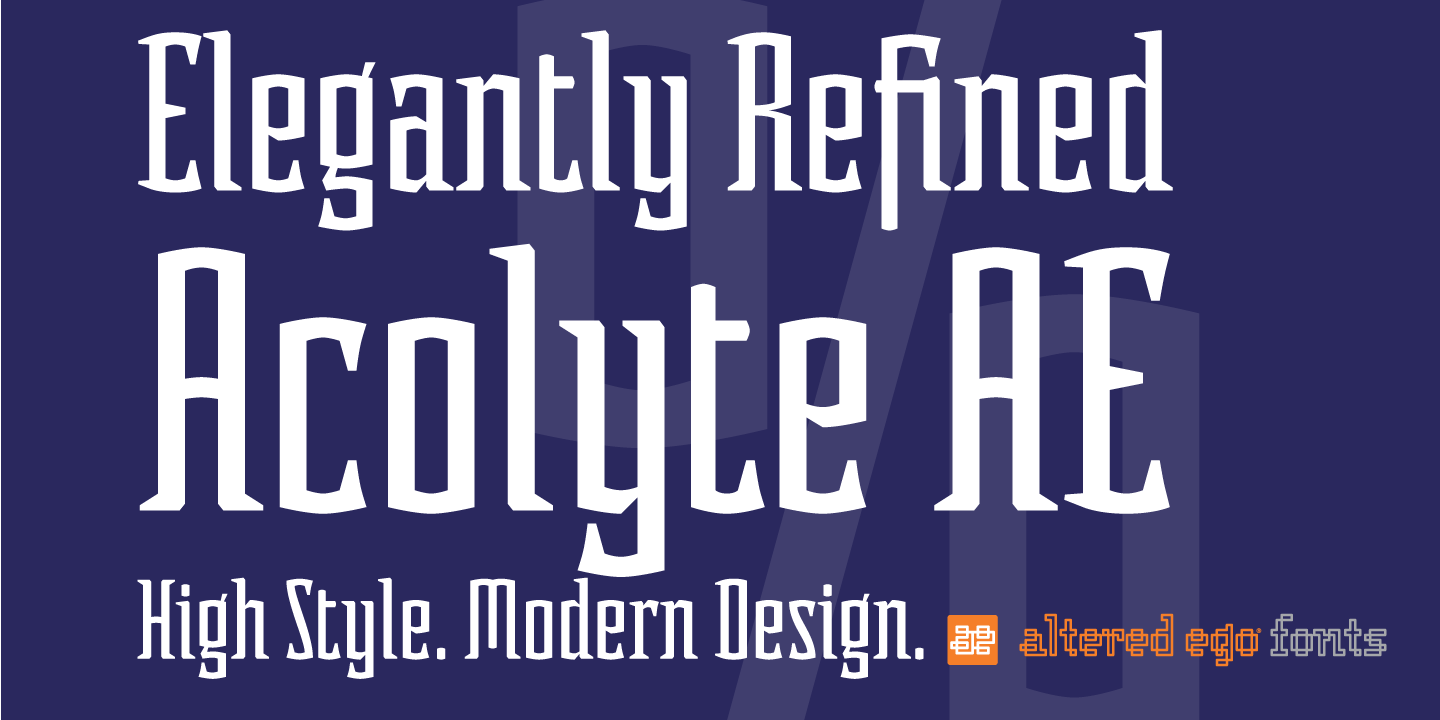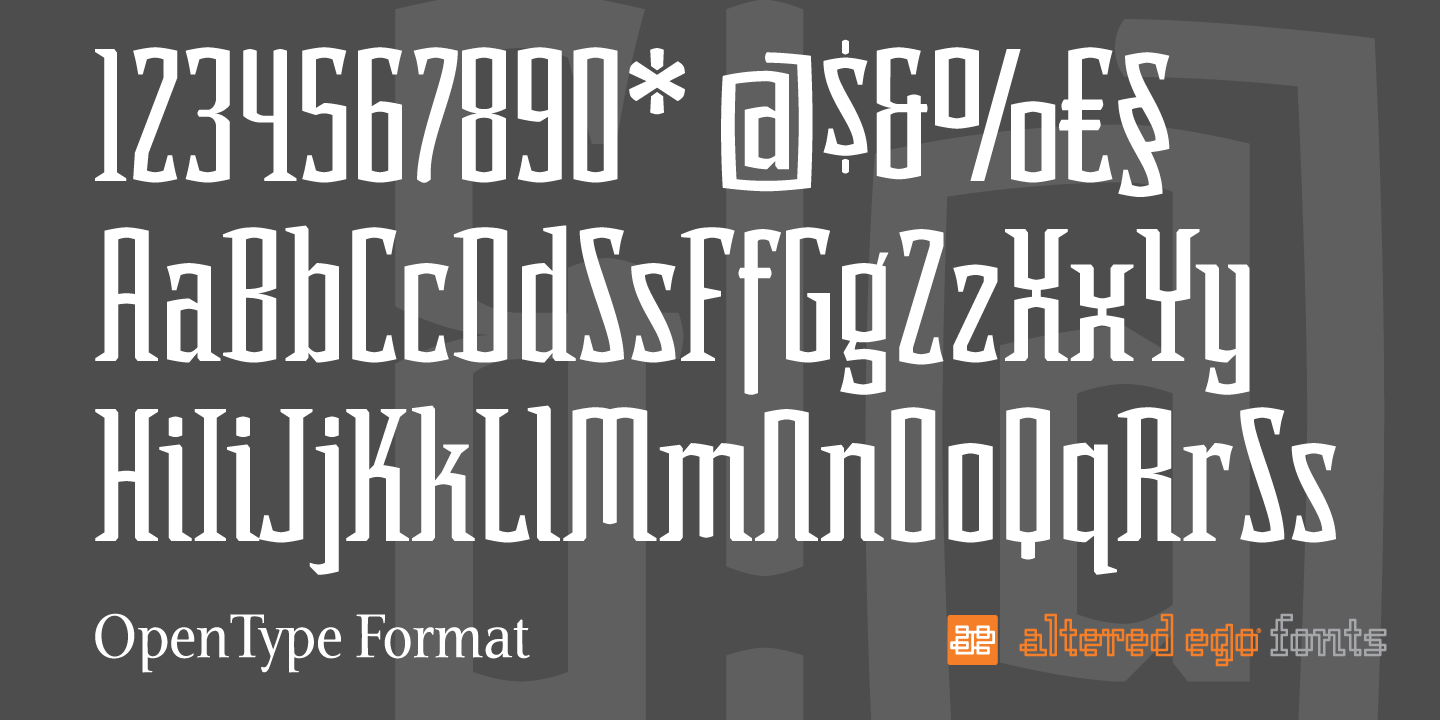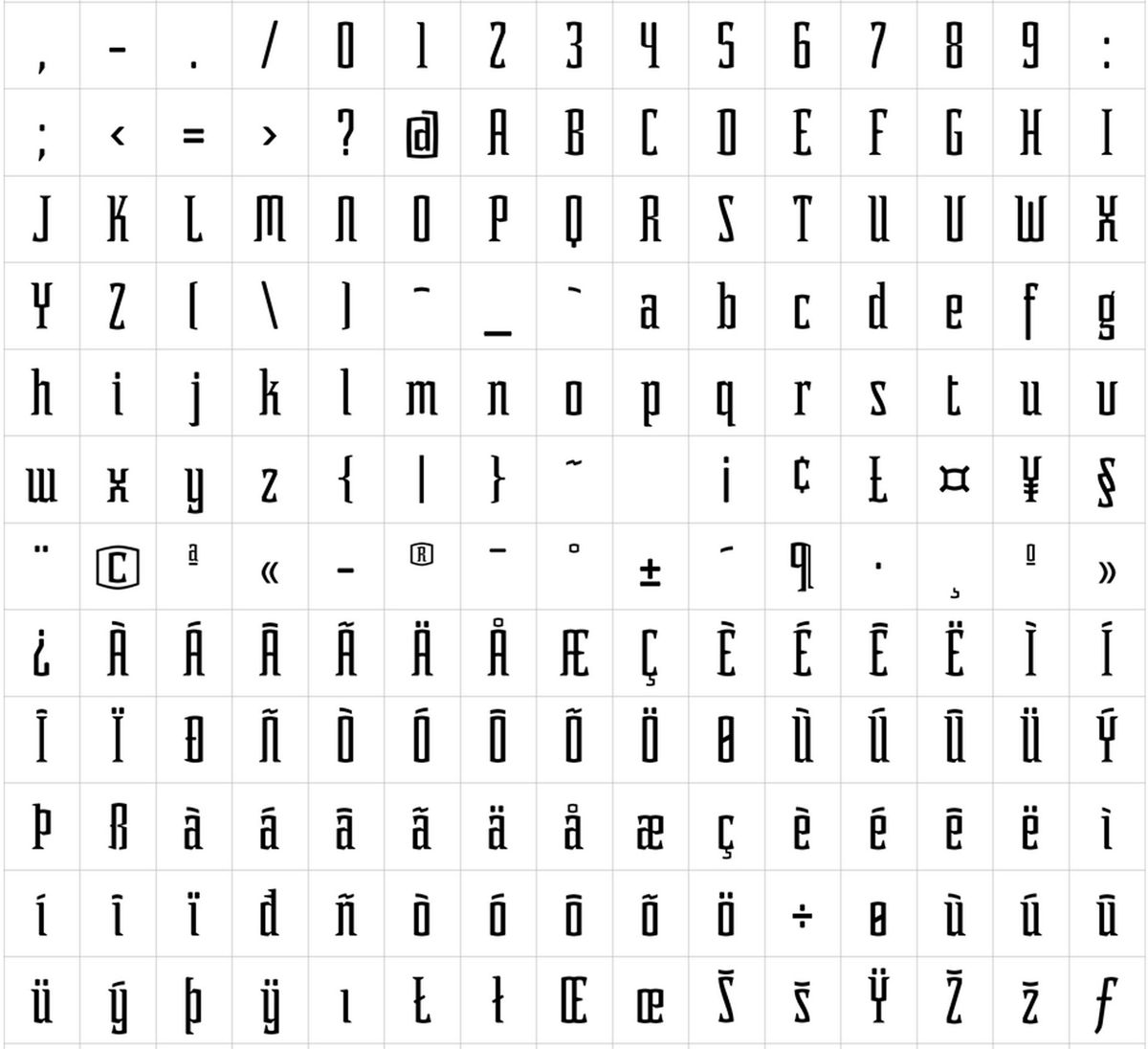
Altered Ego Acolyte Font
An elegantly refined typeface with a subtle wedge serif
Acolyte will illuminate your designs with a display typeface reminiscent of European 20th century letterforms
The character shapes of Acolyte AE set a rhythm of light and dark like windows in a cathedral.
Wrapped in an aura of mystery
Standing tall (as in condensed!) and respectful, Acolyte AE is aptly named as a companion to any design, packaging and advertising.
Acolyte will illuminate your designs with a display typeface reminiscent of European 20th century letterforms. Its distinctive letterforms are slightly chiseled and angular with curves in just the right places.